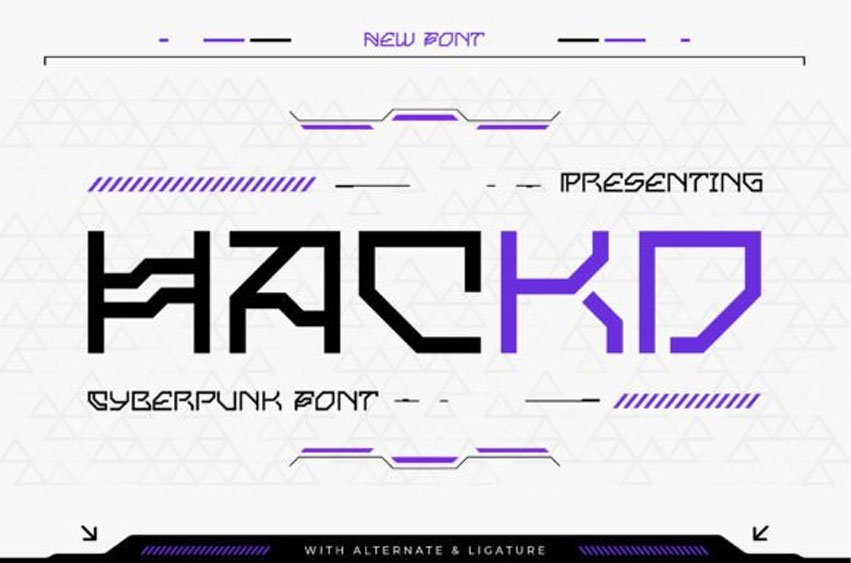
Hackd Font is a cyberpunk font that transports your designs into the neon-lit streets of a futuristic metropolis, infusing them with the edgy energy of cyberpunk culture.
With its sleek lines and futuristic aesthetic, “Hackd” embodies the essence of cyberpunk typography, offering a bold and dynamic visual language for your projects. Whether you’re designing game interfaces, movie titles, tech blogs, or album covers, this font adds a touch of dystopian allure and rebellious spirit to your designs.
Embrace the cyberpunk vibes of “Hackd” as it effortlessly enhances your creations. With its glitchy accents and razor-sharp edges, this font captures the raw energy and gritty atmosphere of the cyberpunk genre, ensuring that your designs stand out with futuristic flair.
Step into the cybernetic future with “Hackd” and let your designs shine with its electrifying and avant-garde style.